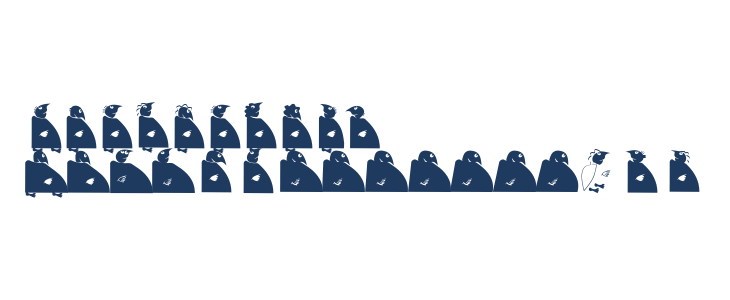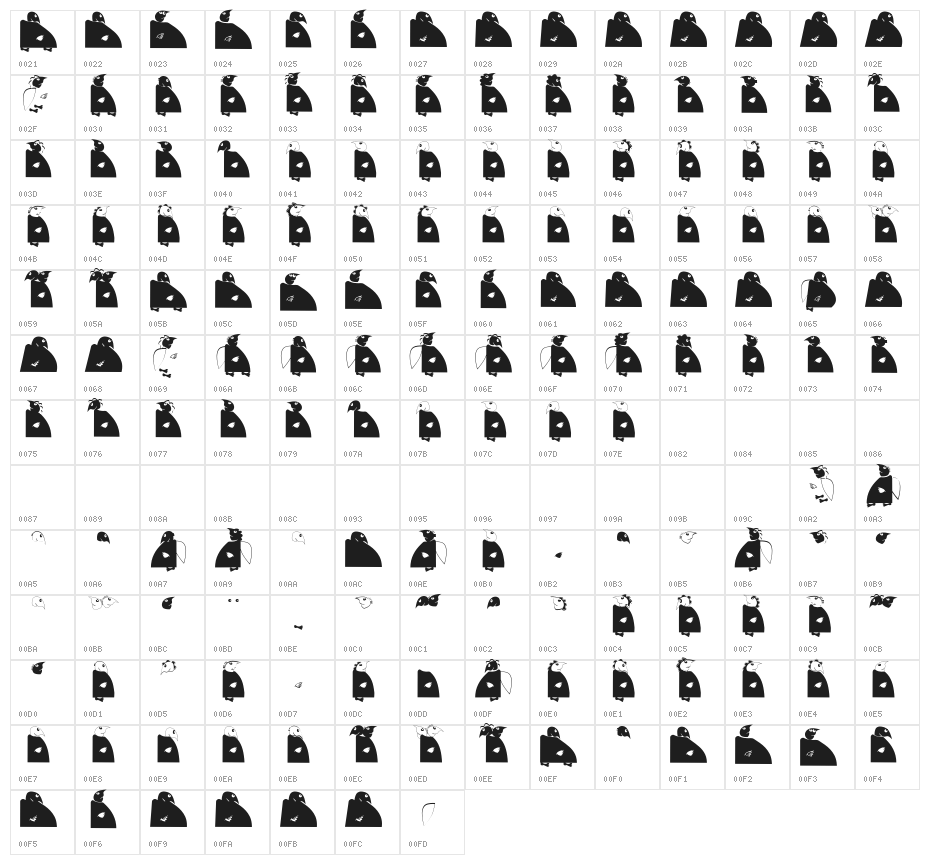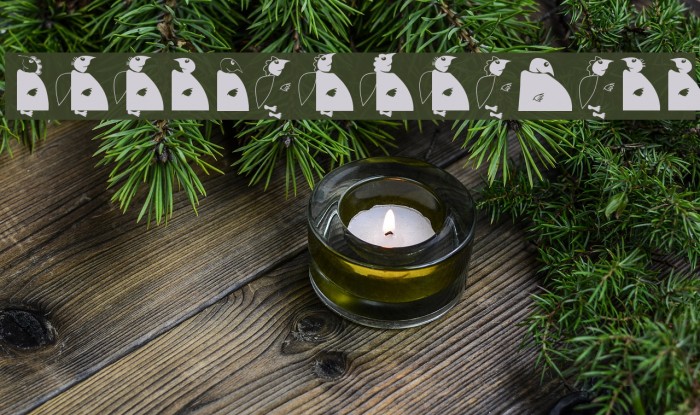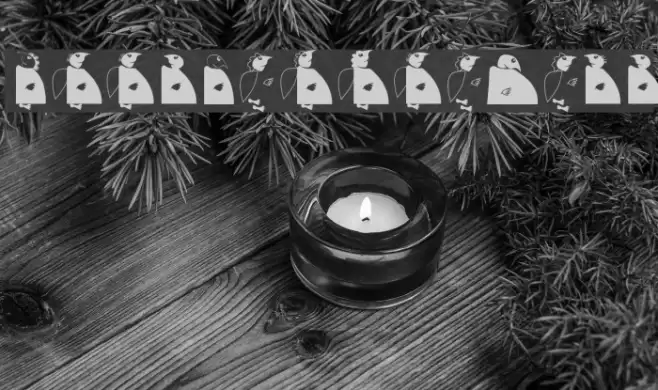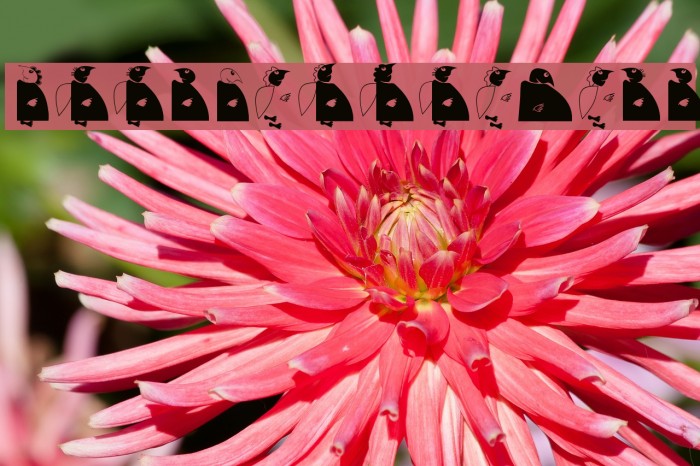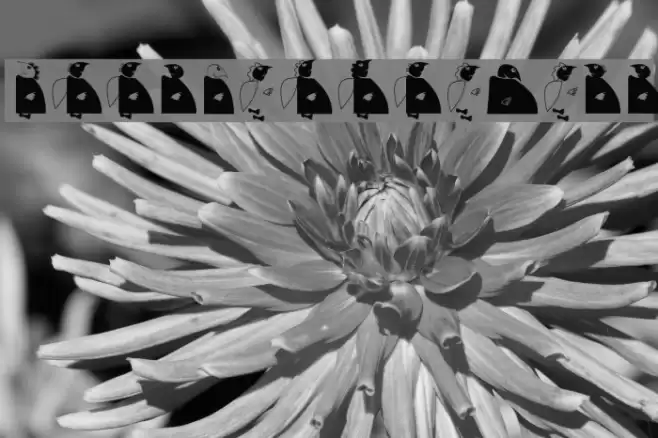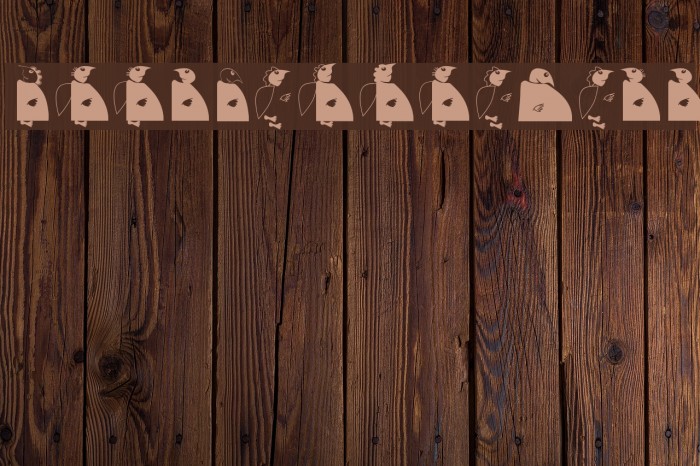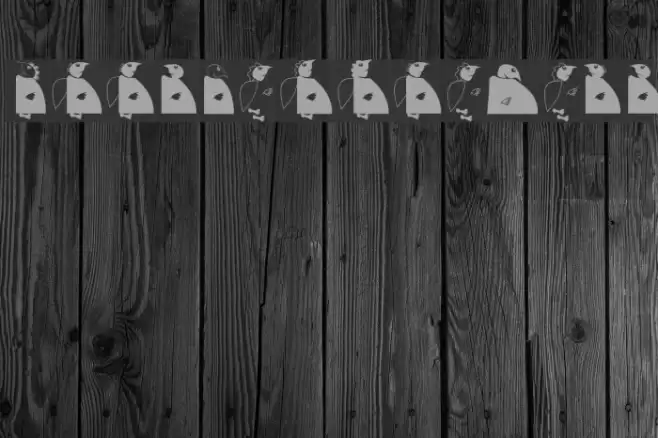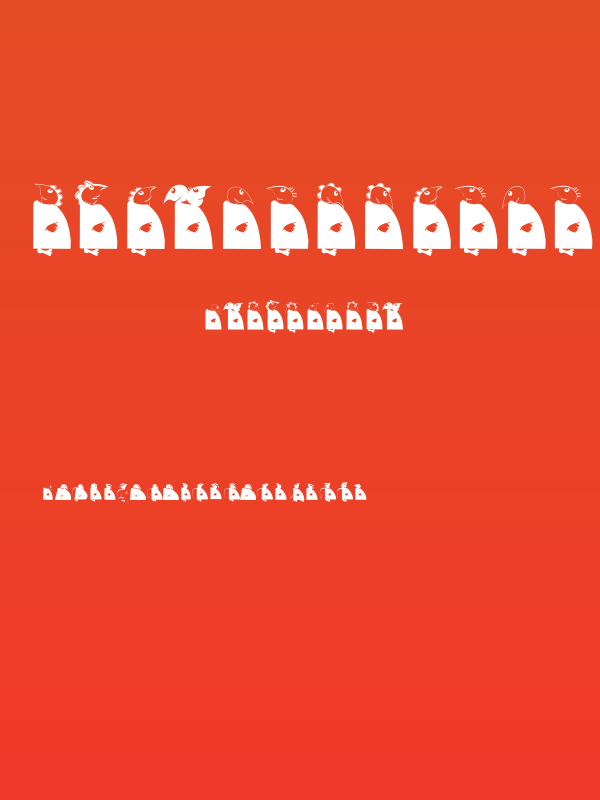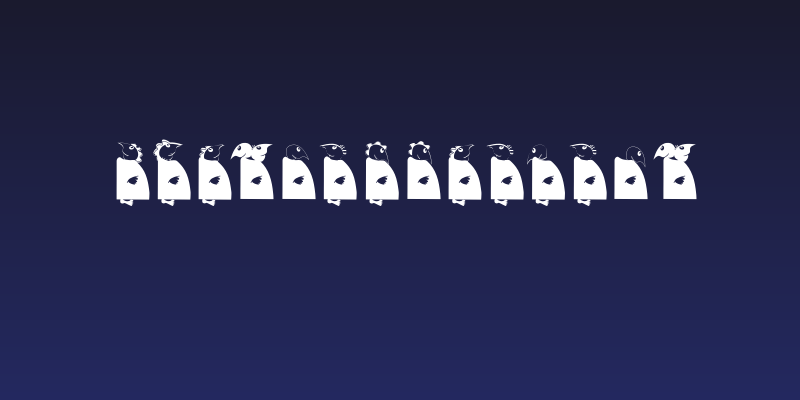
HolySimplicity Font
HolySimplicity Description
This is not a valid font. The image contains stylized characters resembling birds or abstract figures rather than traditional typographic elements. Each figure is unique, with variations in head shapes and body designs, creating a whimsical and artistic pattern. These elements are more suited for decorative purposes rather than functional text representation.
| Overall Style | Artistic, Whimsical |
| Use Case | Decorative art, Creative design |
| Proposed Projects | Art installations, decorative patterns, or creative design projects. |